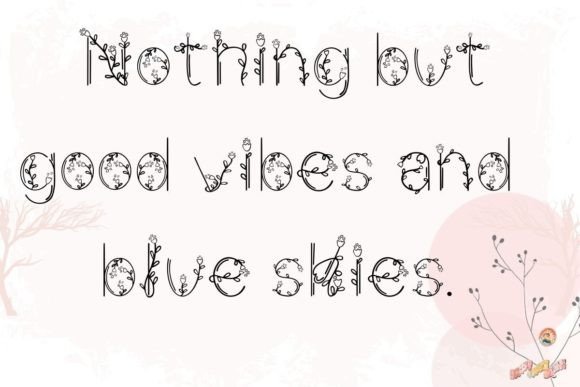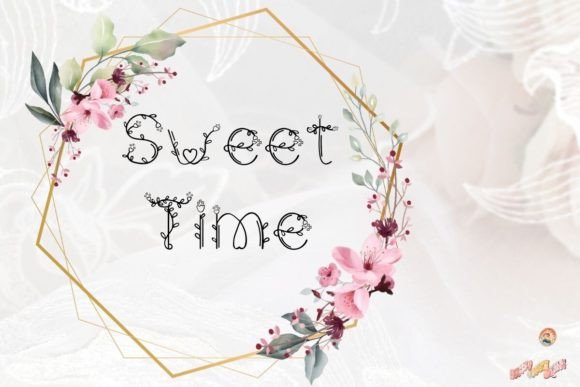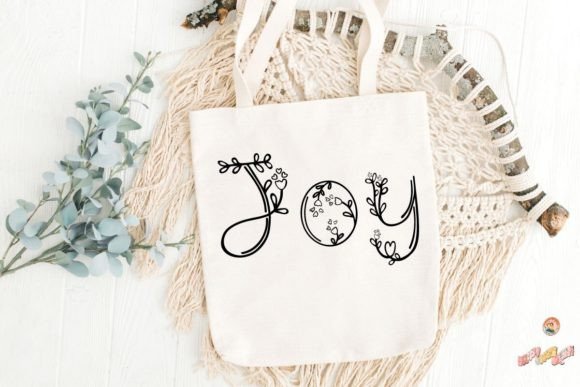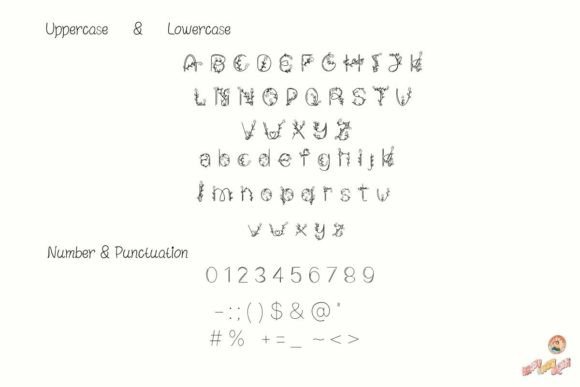
Introducing Floral Sweet Font: The Ultimate Decorative Typeface for Your Holiday Designs
Are you looking for a beautiful and unique font to add a touch of elegance and whimsy to your holiday designs? Look no further than Floral Sweet Font, a stunning decorative typeface that features intricate floral designs integrated into each letter. This gorgeous font is perfect for creating holiday cards, gift tags, seasonal banners, t-shirts, and many more children’s products that will make your designs stand out from the crowd.
A Beautiful Design Inspired by Nature
Floral Sweet Font is a one-of-a-kind design that combines the sweetness of flowers with the charm of a classic font. Each letter is carefully crafted to incorporate beautiful floral elements, making it a true masterpiece of typography. The font’s design is inspired by the beauty of nature, with delicate flowers, leaves, and vines woven together to create a stunning visual effect.
Perfect for Holiday Designs
The holiday season is just around the corner, and Floral Sweet Font is the perfect choice for adding a touch of festive cheer to your designs. Whether you’re creating holiday cards, gift tags, or seasonal banners, this font is sure to make your designs shine. The font’s playful and whimsical design makes it ideal for children’s products, such as t-shirts, stickers, and coloring books.
Key Features of Floral Sweet Font
- Unique and decorative design: Floral Sweet Font features a one-of-a-kind design that combines floral elements with a classic font.
- Perfect for holiday designs: The font’s festive design makes it ideal for holiday cards, gift tags, seasonal banners, and more.
- Whimsical and playful: The font’s playful design makes it perfect for children’s products, such as t-shirts, stickers, and coloring books.
Why Choose Floral Sweet Font?
There are many reasons why Floral Sweet Font is the perfect choice for your holiday designs. Here are just a few:
- Unique design: Floral Sweet Font features a one-of-a-kind design that will make your designs stand out from the crowd.
- Perfect for holiday designs: The font’s festive design makes it ideal for holiday cards, gift tags, seasonal banners, and more.
- Whimsical and playful: The font’s playful design makes it perfect for children’s products.
Floral Sweet Font is a stunning decorative typeface that is perfect for adding a touch of elegance and whimsy to your holiday designs. With its unique and beautiful design, this font is sure to make your designs shine. Whether you’re creating holiday cards, gift tags, seasonal banners, t-shirts, or children’s products, Floral Sweet Font is the ideal choice. So why wait? Download Floral Sweet Font today and start creating beautiful holiday designs that will delight your audience.